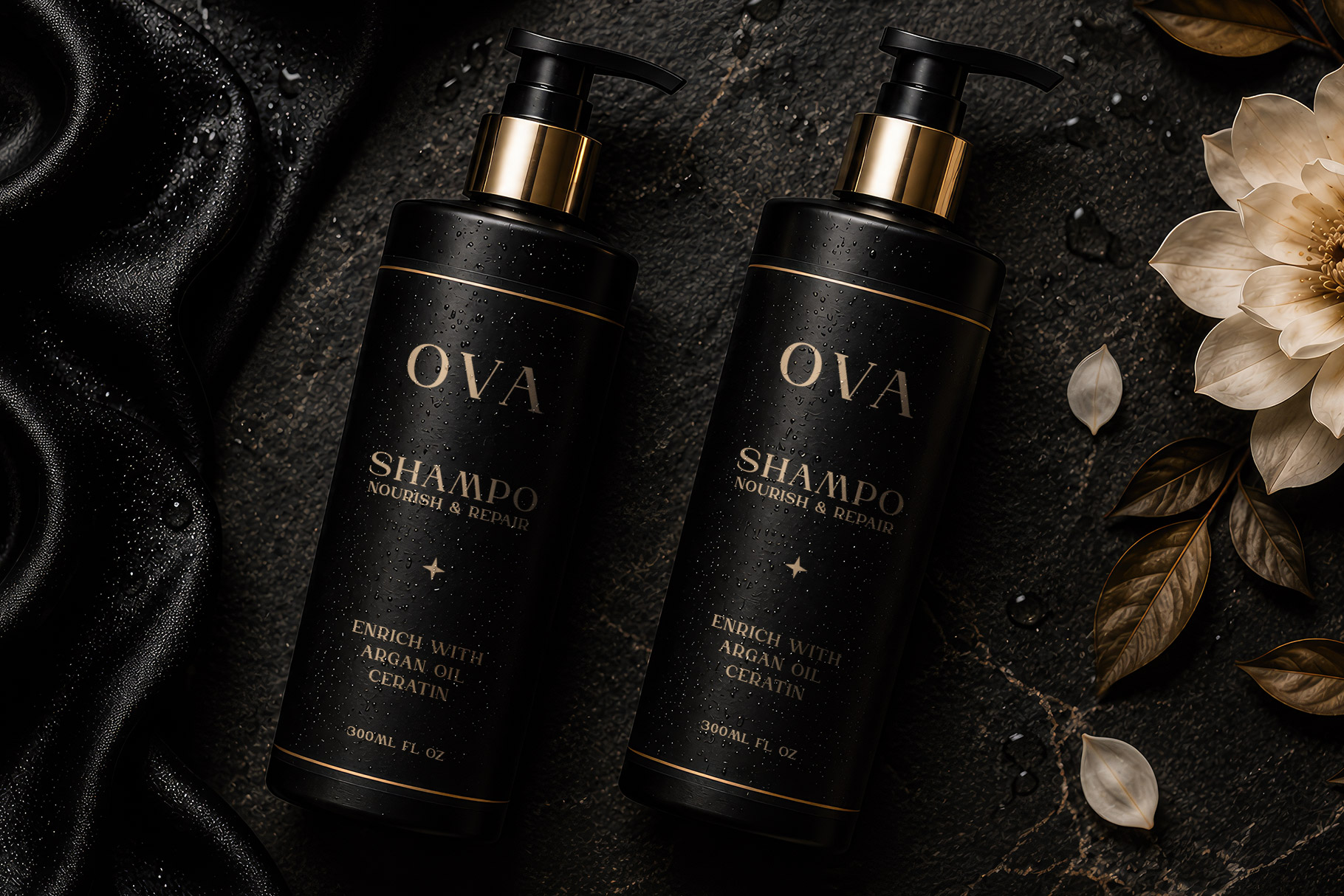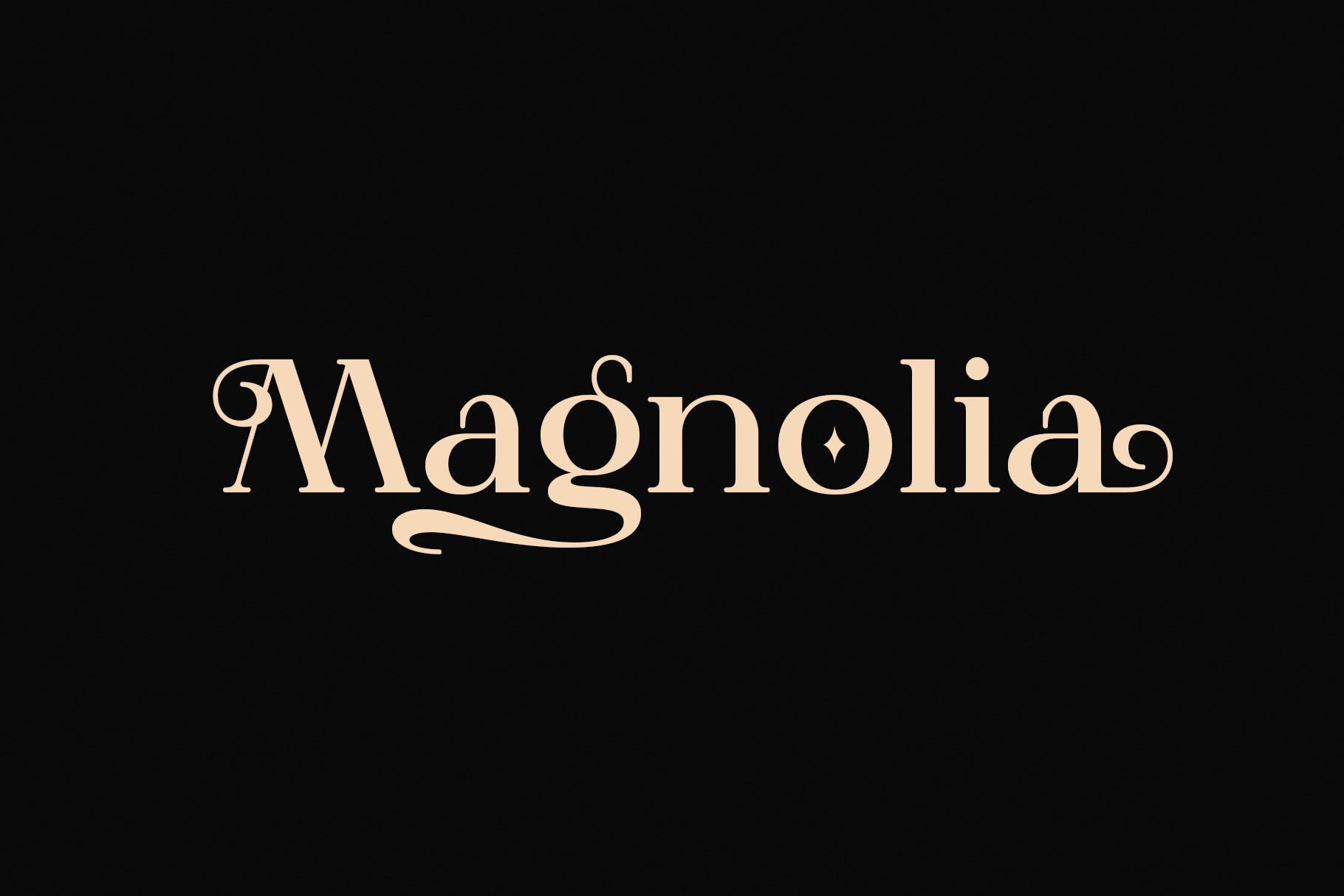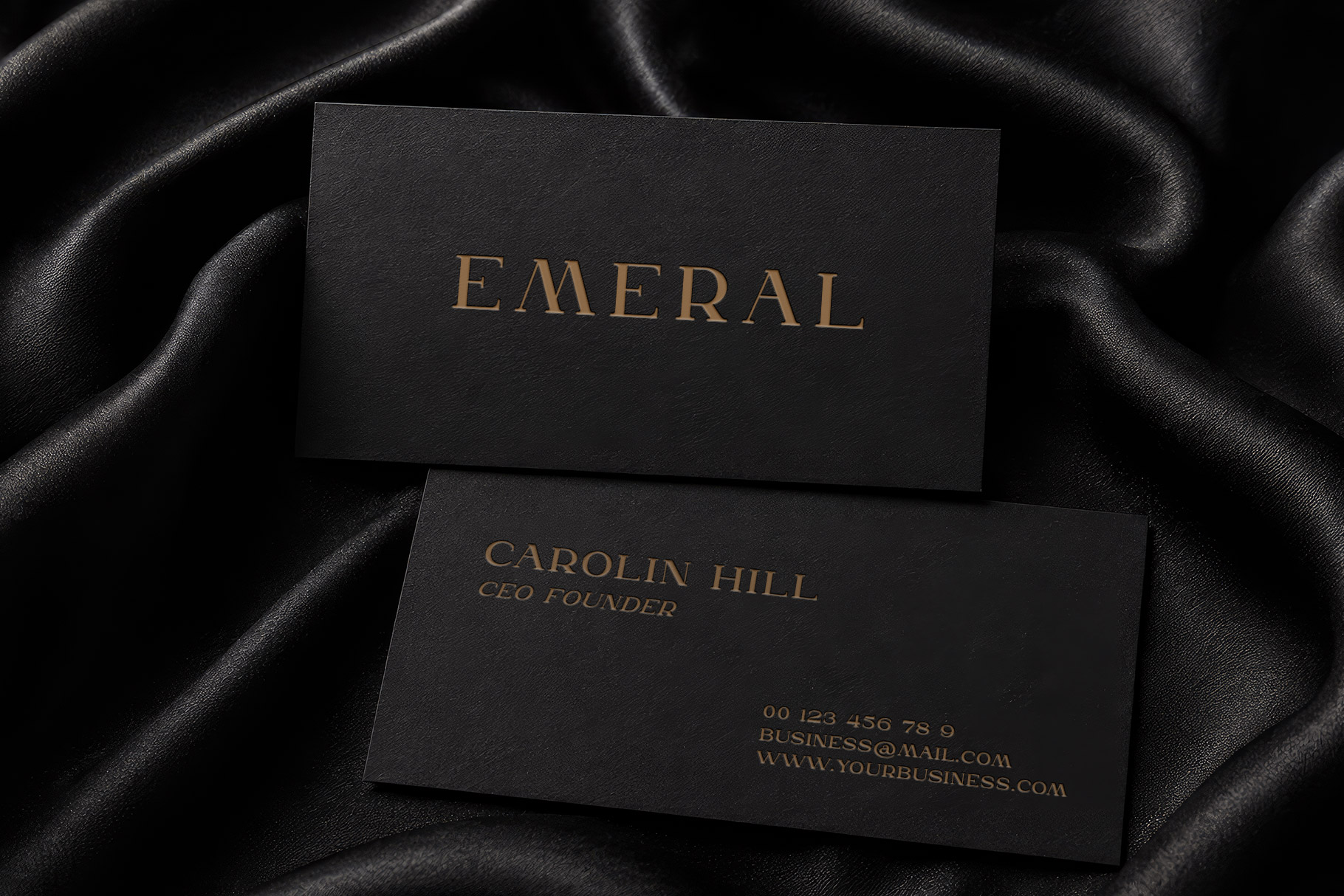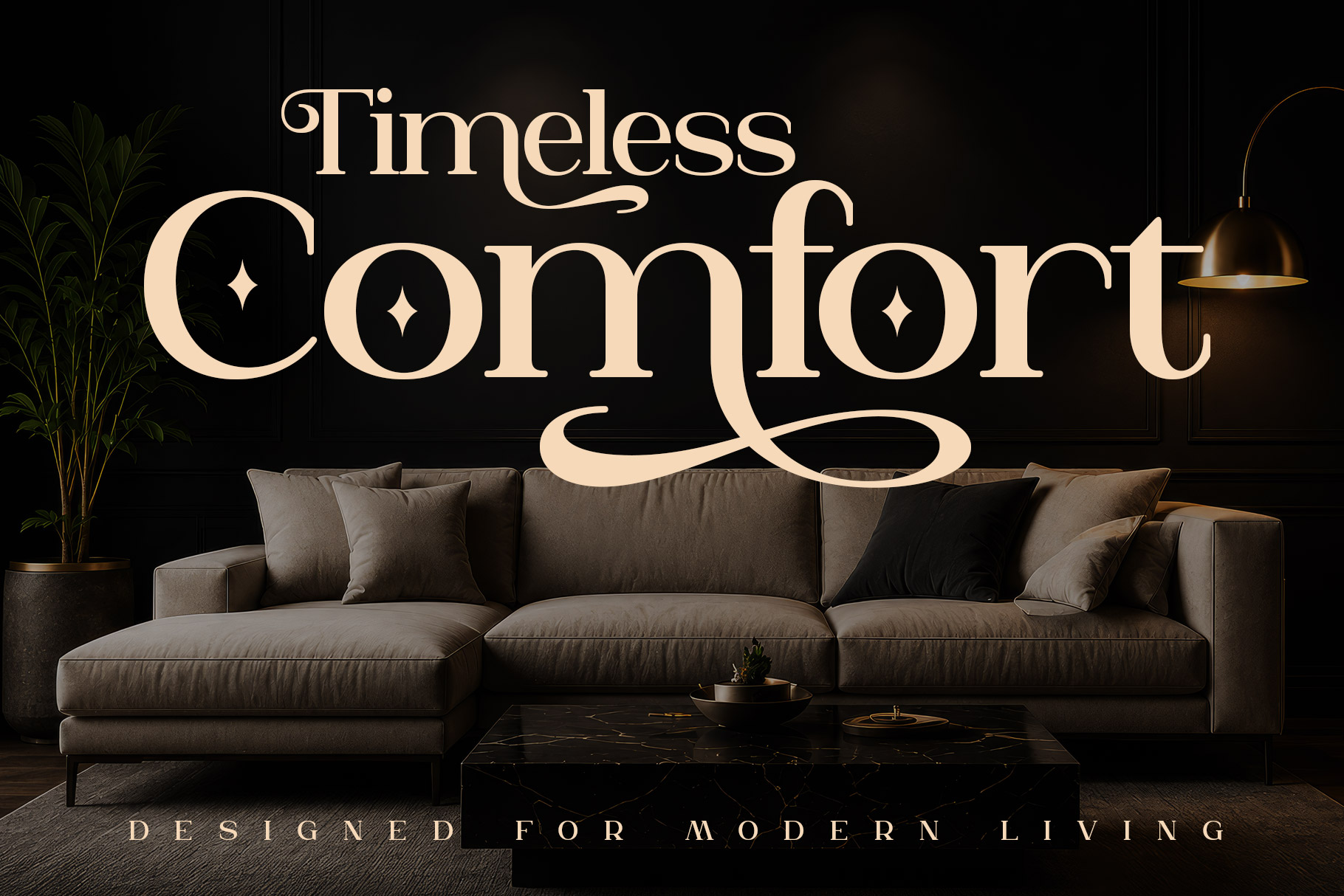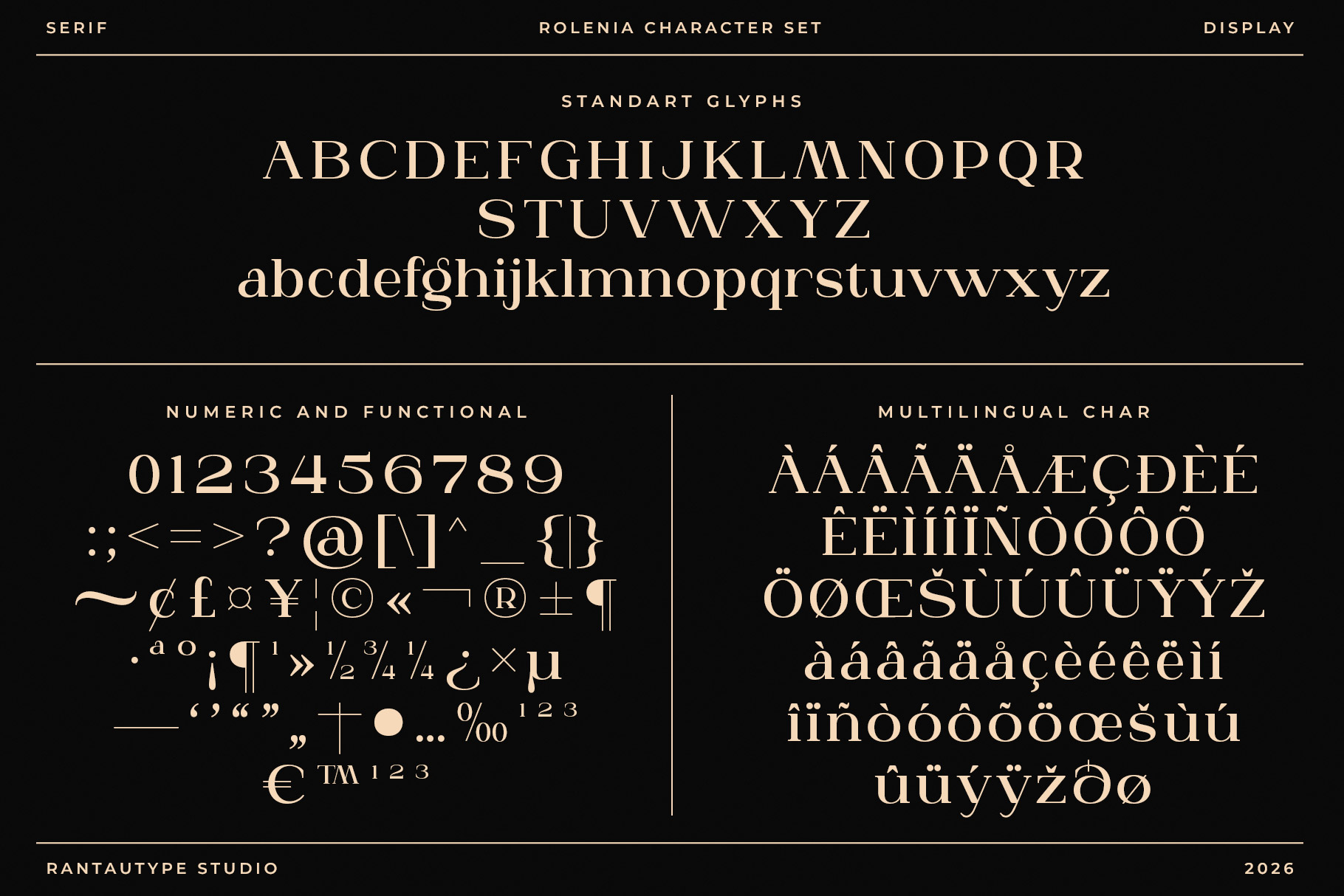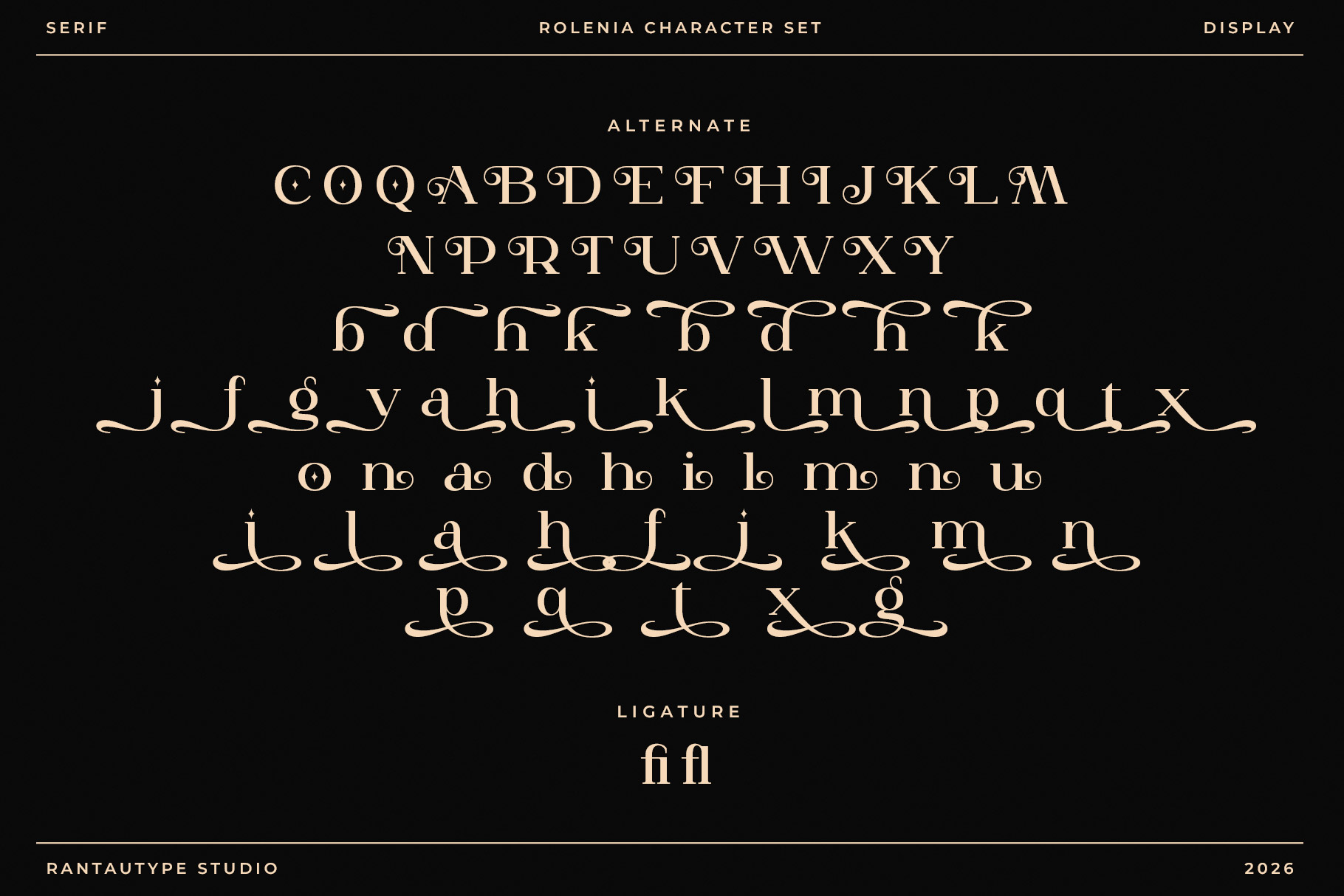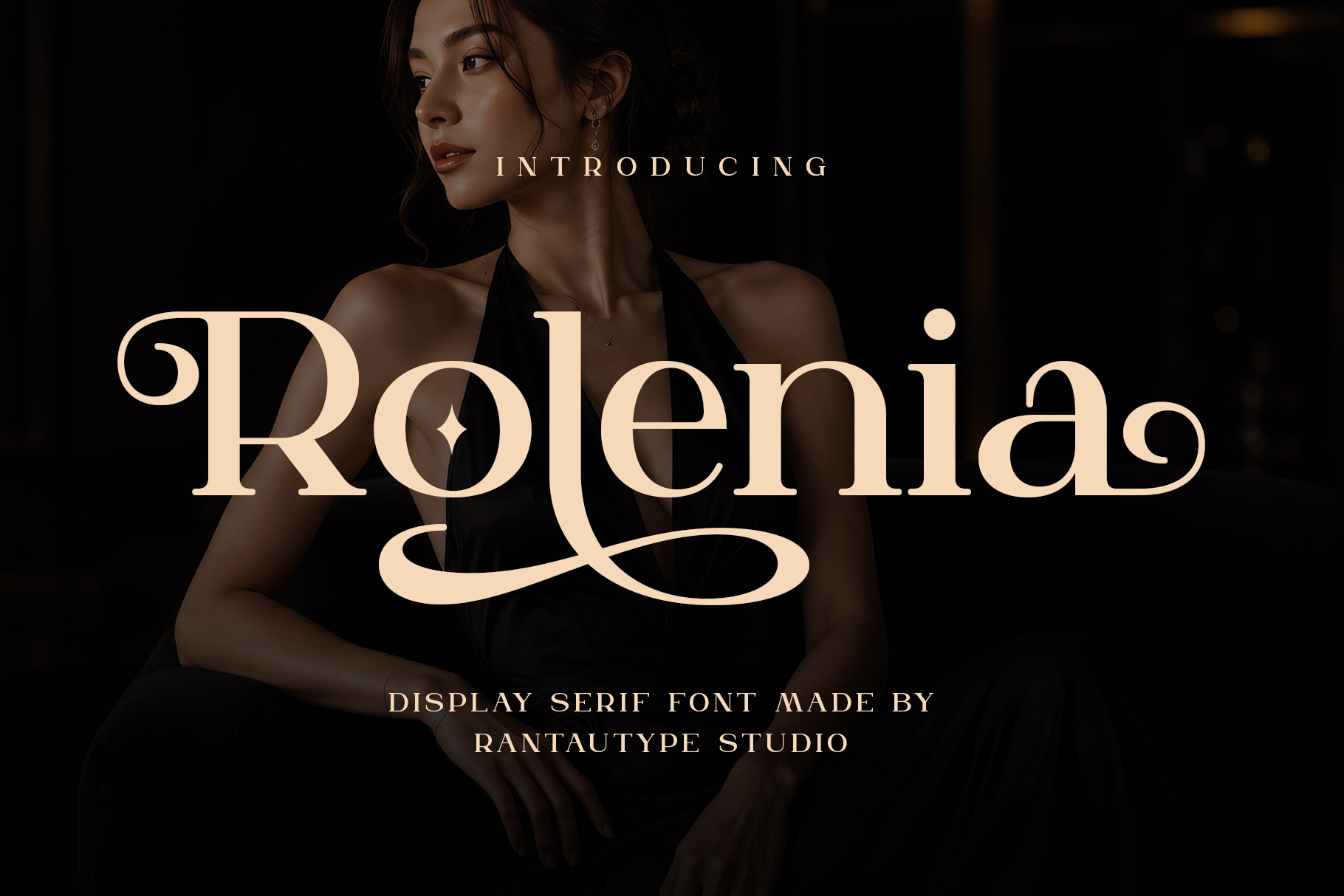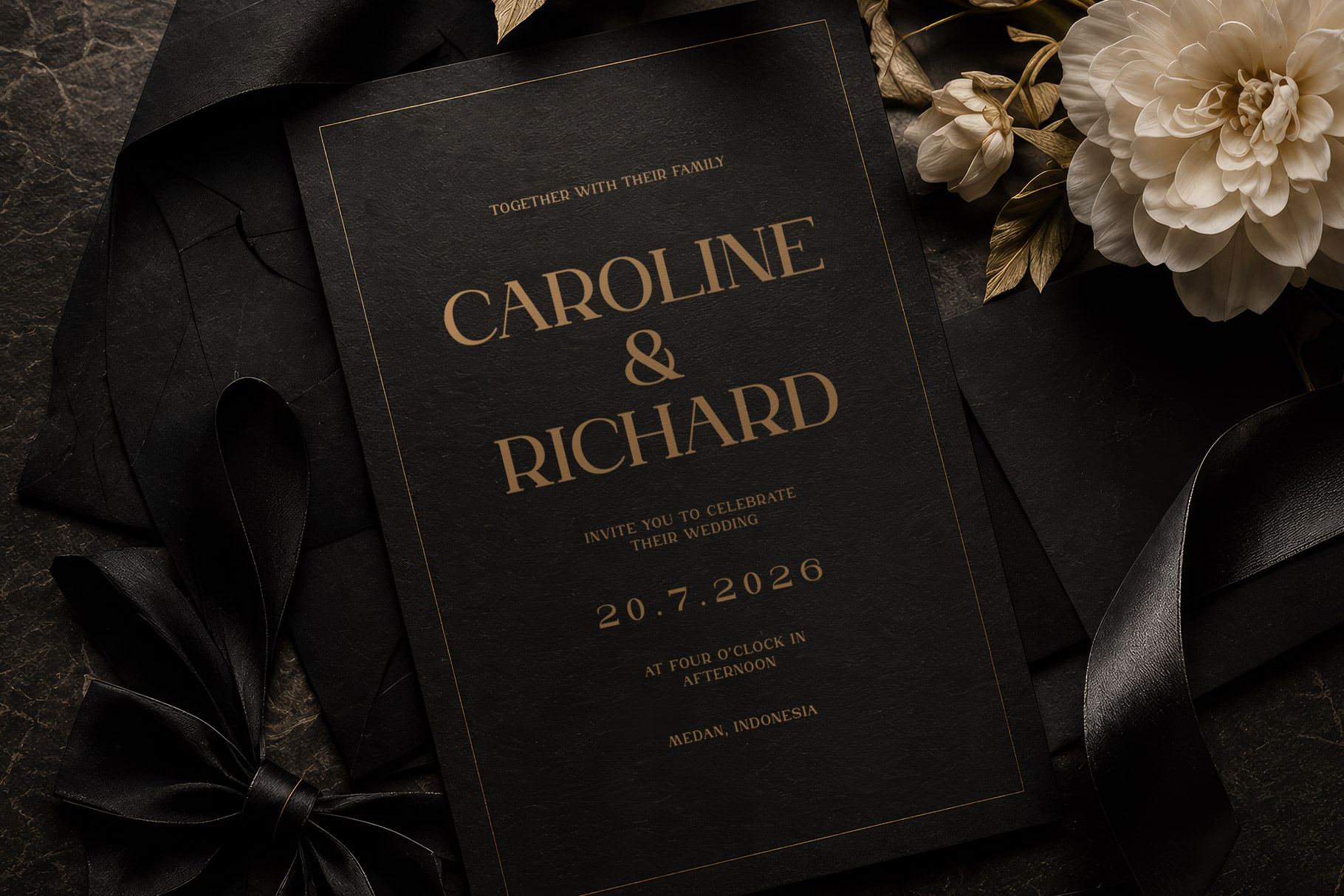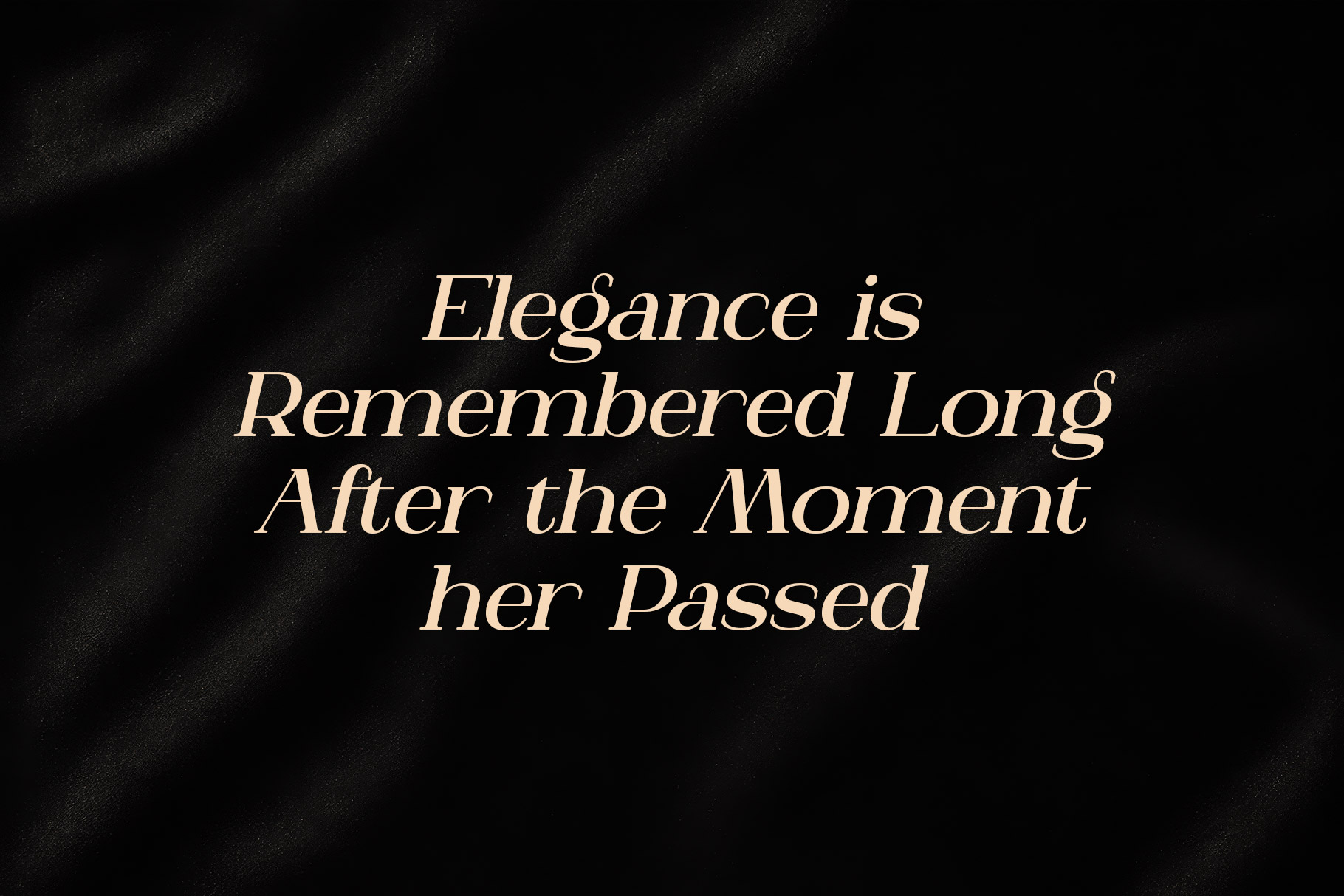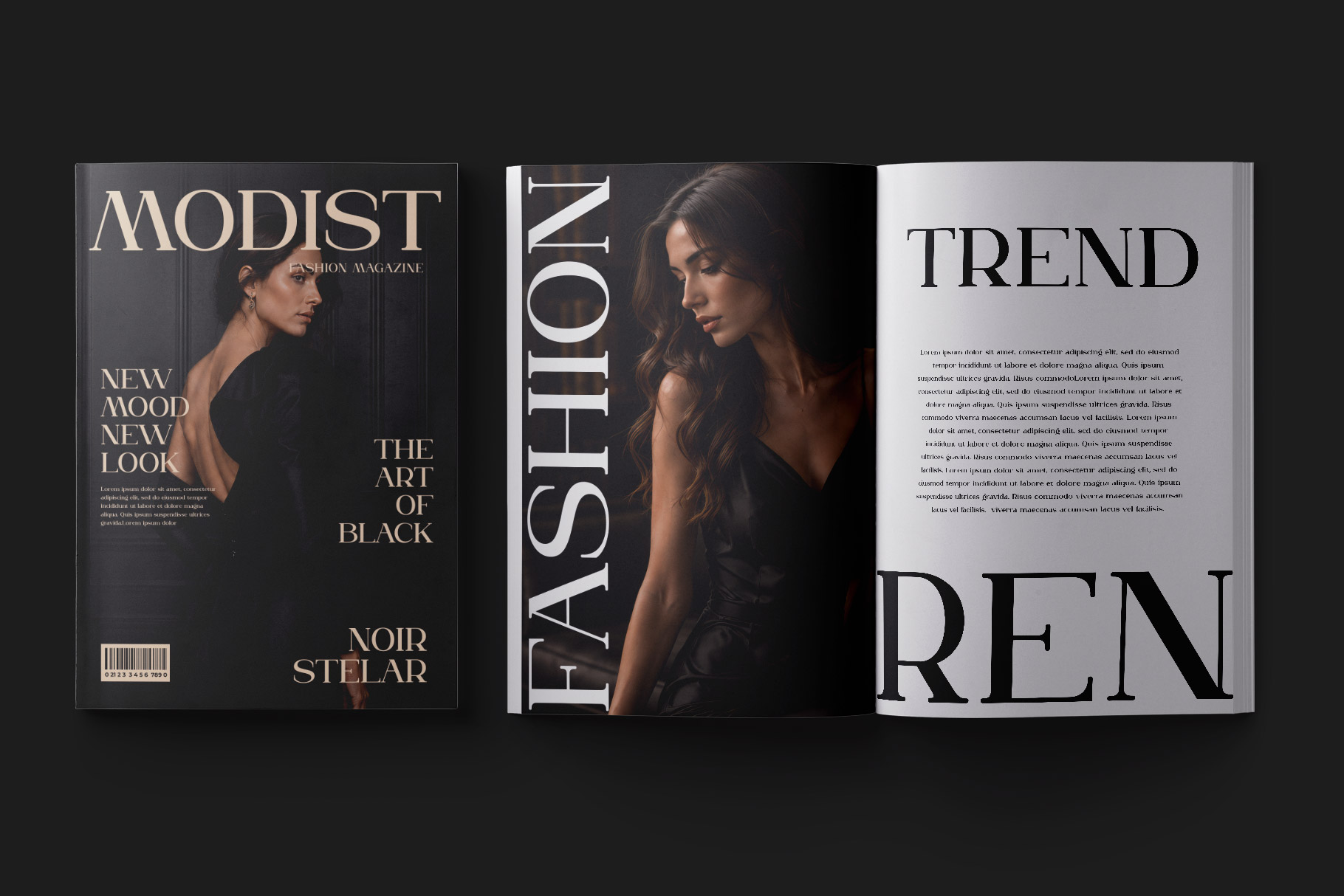
Rolenia is a sophisticated display serif typeface that blends timeless elegance with contemporary luxury. Designed with dramatic high contrast strokes, graceful curves, and refined ornamental details, this font immediately captures attention while maintaining exceptional readability. Its distinctive letterforms feature flowing swashes, delicate terminals, and artistic flourishes that transform every word into a statement of beauty and prestige.
Rolenia a perfectly choice for any creative endeavor, creating, modern, lifestyle design such as logotype, title, cover, branding, invitations, wedding designs, display and magazine, social media posts, advertisements, printed quotes, product packaging, corporate brand, product designs, labels, photography, watermarks, special events and any other project with elegant touch.
Rolenia Display Serif Font